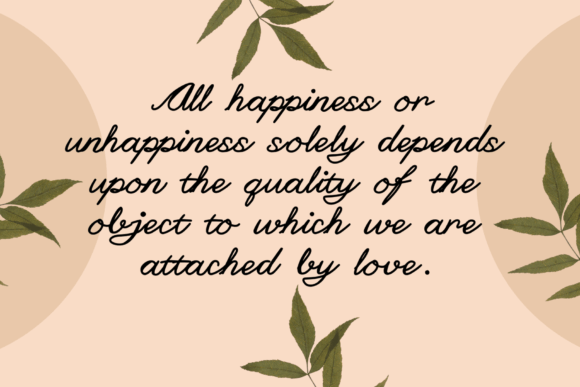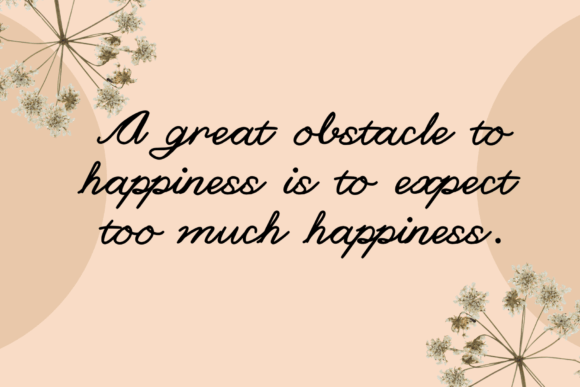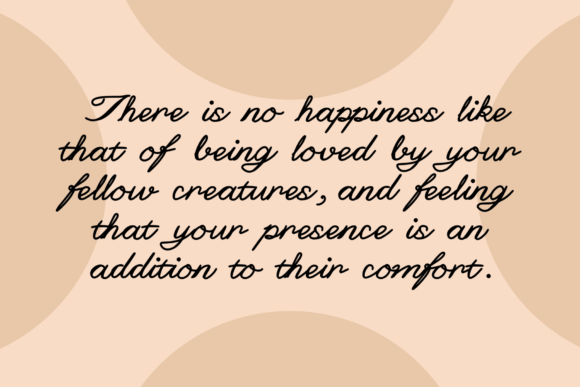
Espresso Font
About Espresso Font
“Espresso” is a script handwritten font that exudes a natural and organic charm, making it ideal for creating beautiful content centered around themes like nature, love, and emotion. Its flowing and graceful strokes capture the essence of these subjects, adding a touch of warmth and authenticity to any project. Whether you’re crafting a romantic love letter, designing a nature-inspired poster, or expressing deep emotions through typography, “Espresso” elevates your content to a new level of beauty and meaning.
This versatile font is not limited to specific themes; its elegance and fluidity make it suitable for almost any creative project you have in mind. Whether you’re working on invitations, branding, social media posts, quotes, or any other creative endeavor, “Espresso” lends a sense of elegance and sophistication to your work. Its handwritten style imparts a personal touch, making your content feel genuine and heartfelt.
The natural flow of “Espresso” makes it a great choice for projects that aim to evoke emotions and create a connection with the audience. Its beauty lies in its simplicity, making it accessible and appealing to a wide range of viewers. Whether you’re designing a heartfelt message, a meaningful quote, or a touching illustration, this font enhances the emotional impact of your content, making it resonate deeply with your audience.
In summary, “Espresso” is more than just a font; it’s a tool that allows you to convey the beauty of nature, love, and emotion through typography. Its handwritten charm and versatility make it a valuable asset for various creative projects. So, whether you’re expressing love, capturing the essence of nature, or exploring complex emotions, let “Espresso” be your choice, and watch as your content comes to life with elegance and sincerity.